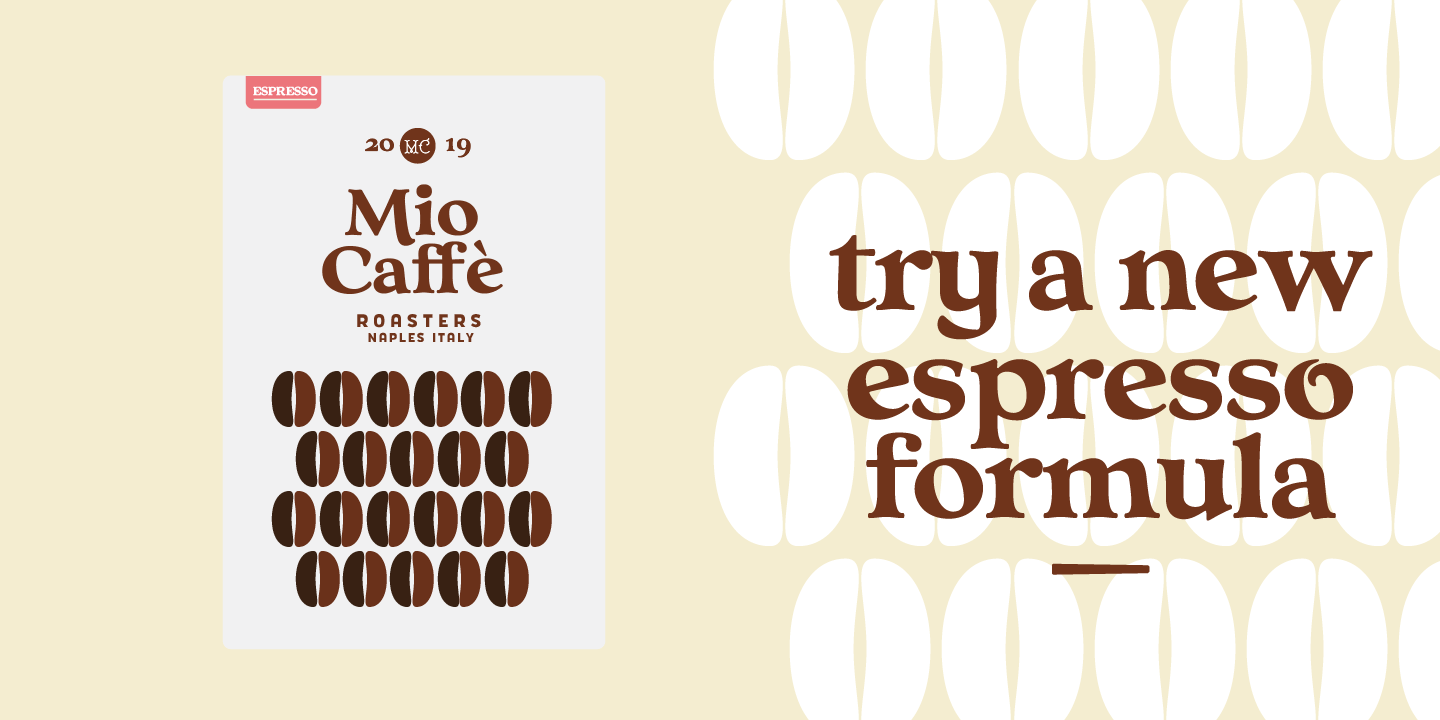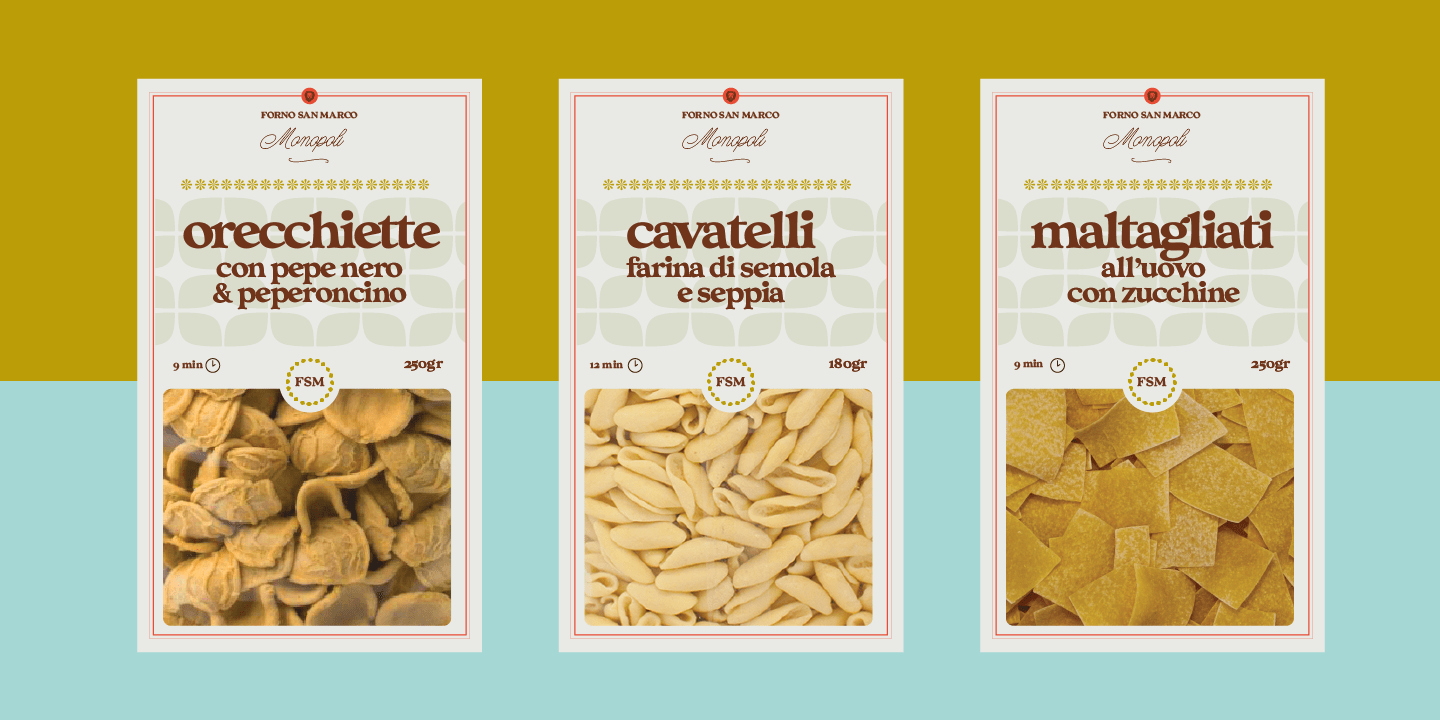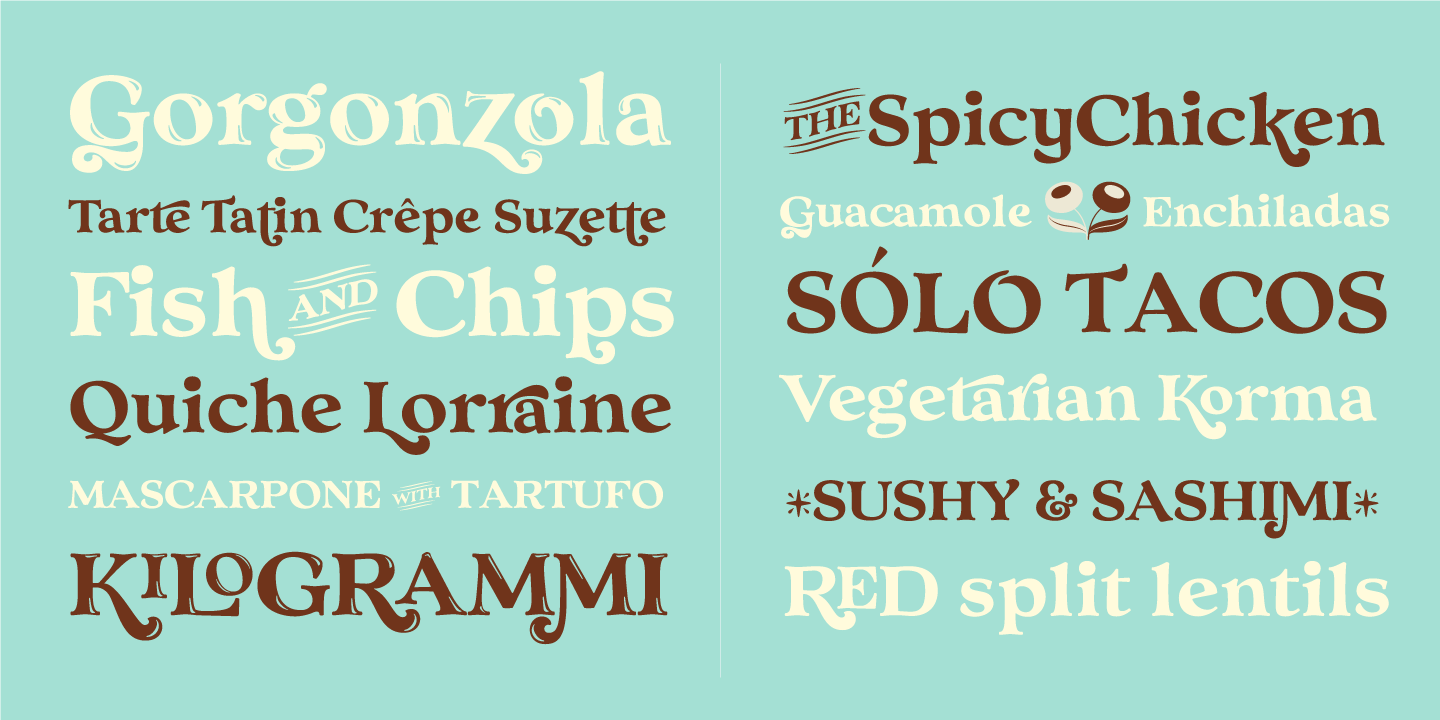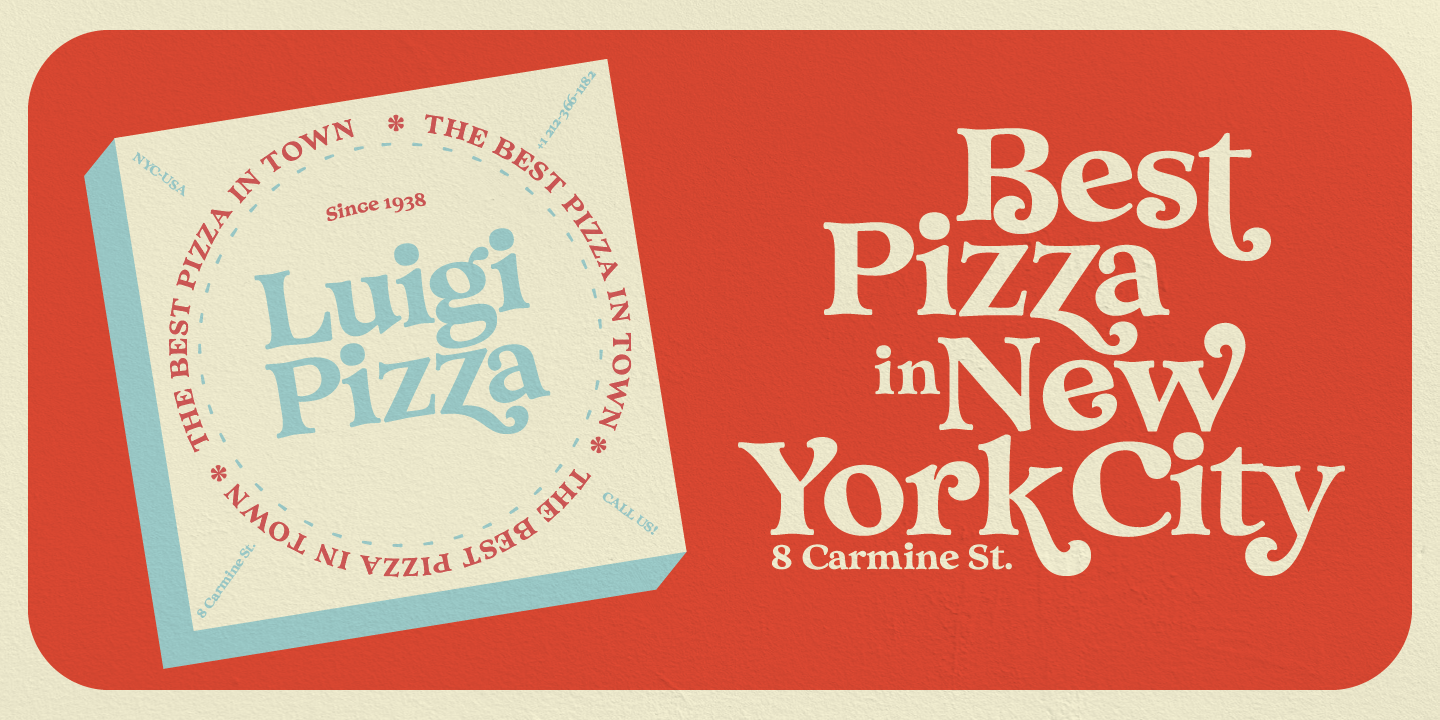
About Nostalgia
Say Hello to Nostalgia! A Modern Font with a retro feeling 3 Fonts Regular, Effect and Flowers. Go back in time and travel through the magazines and graphics from the fabulous 1970s. Different serif typefaces, rounded and bold were the big focus to add…